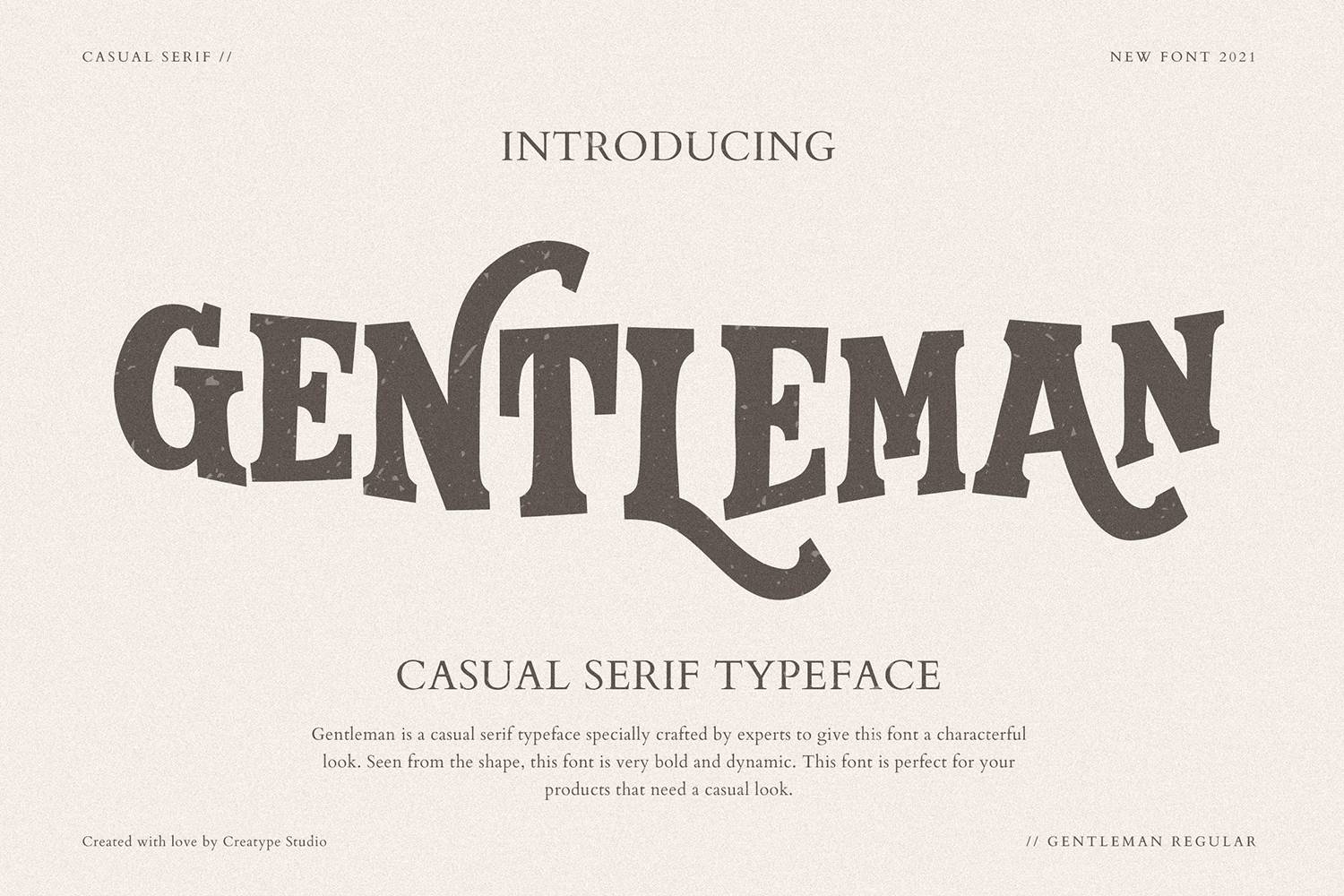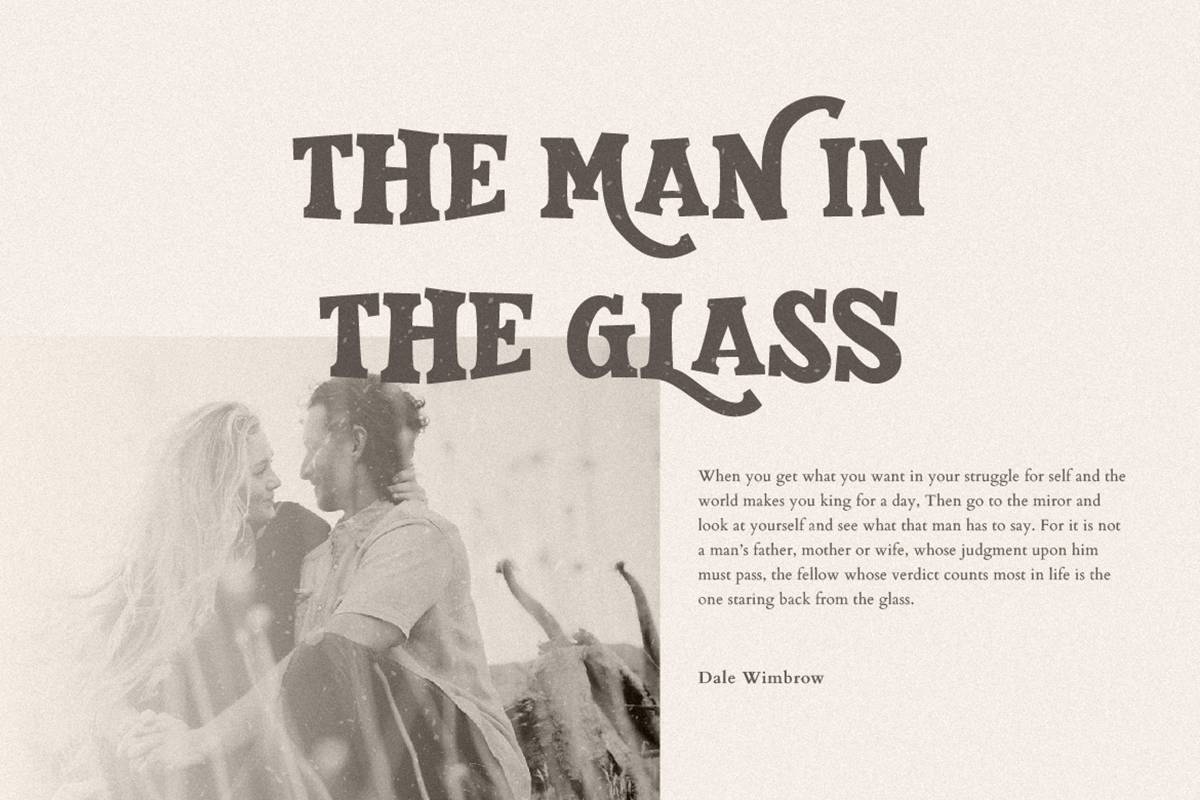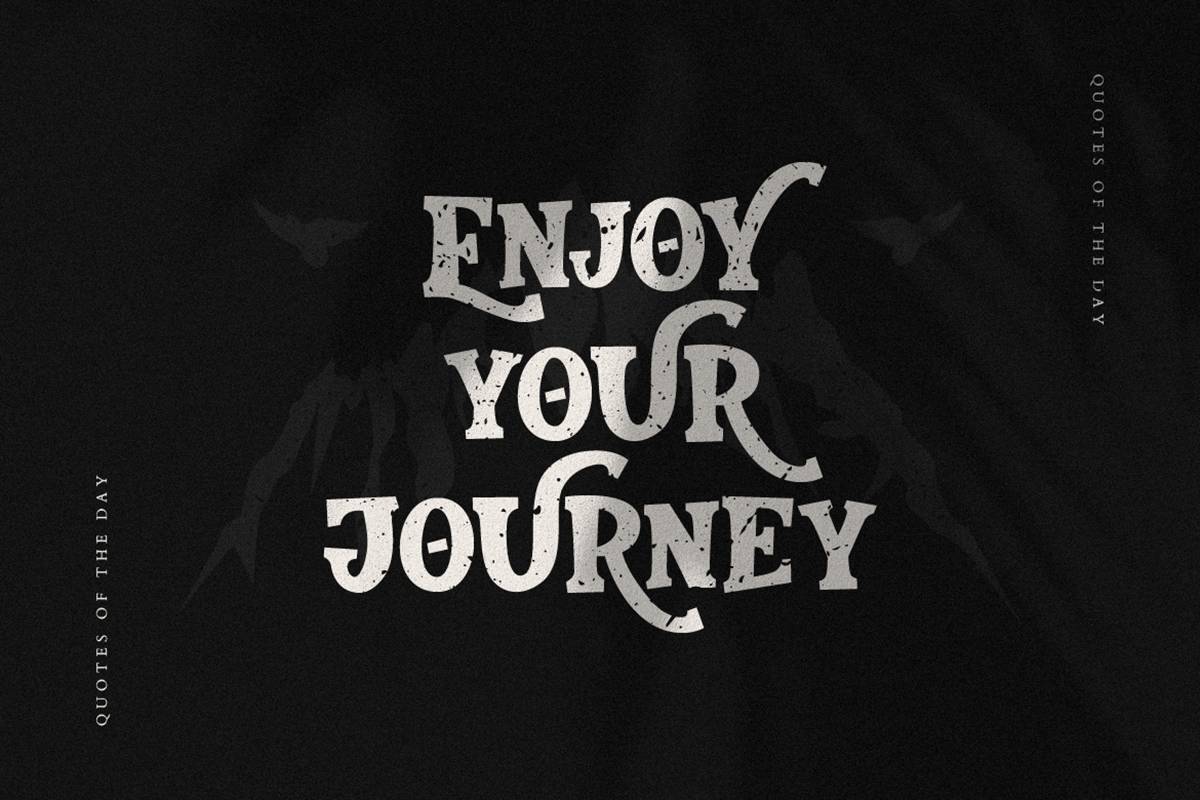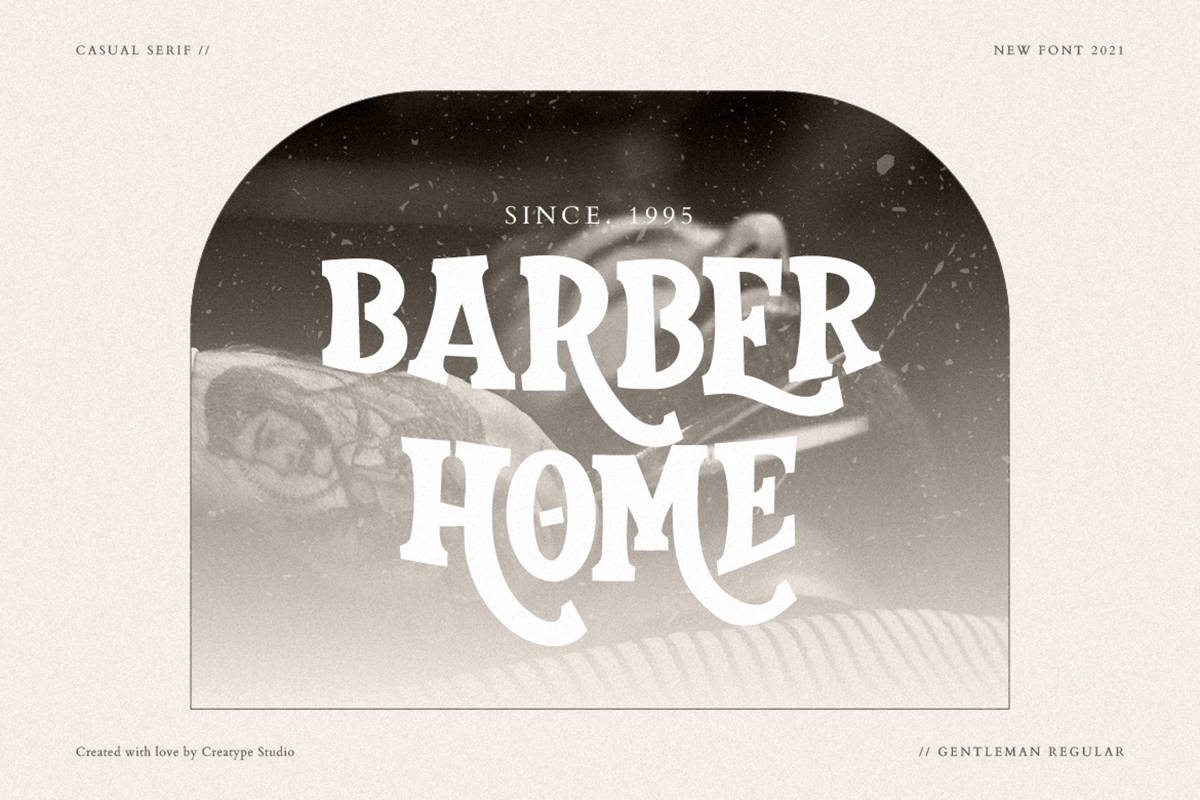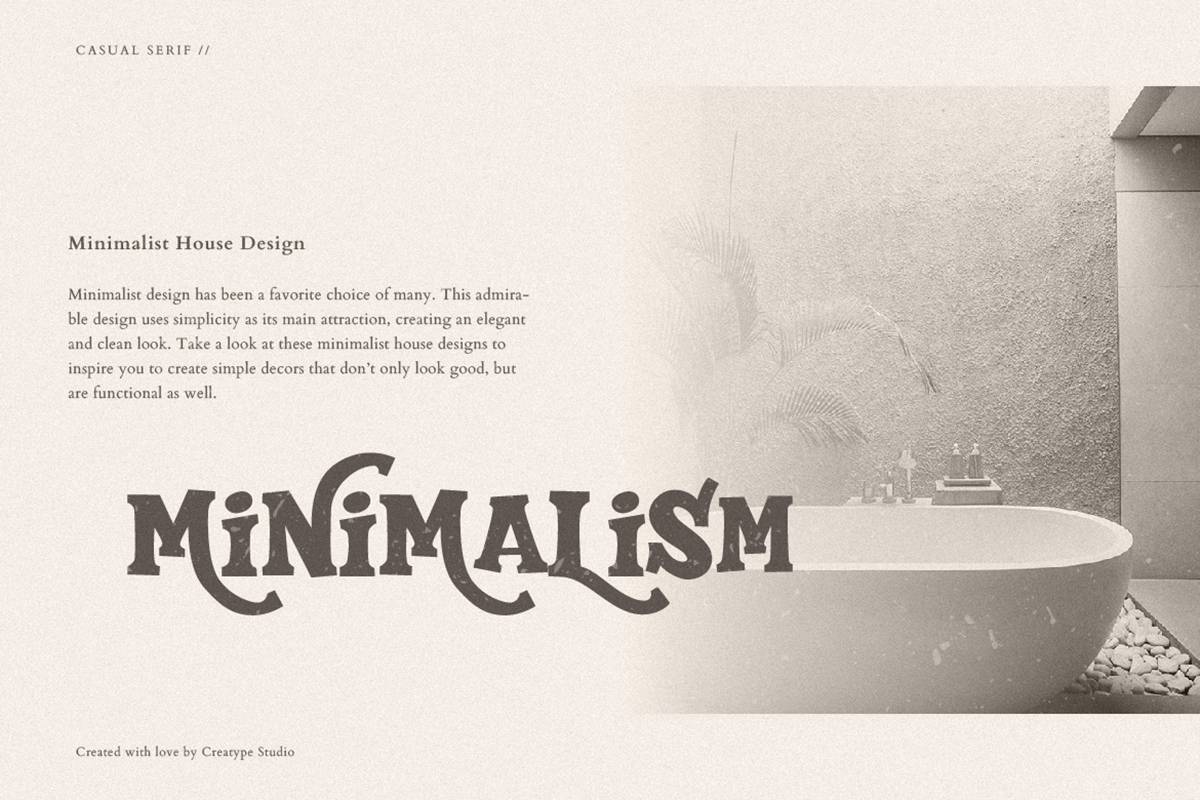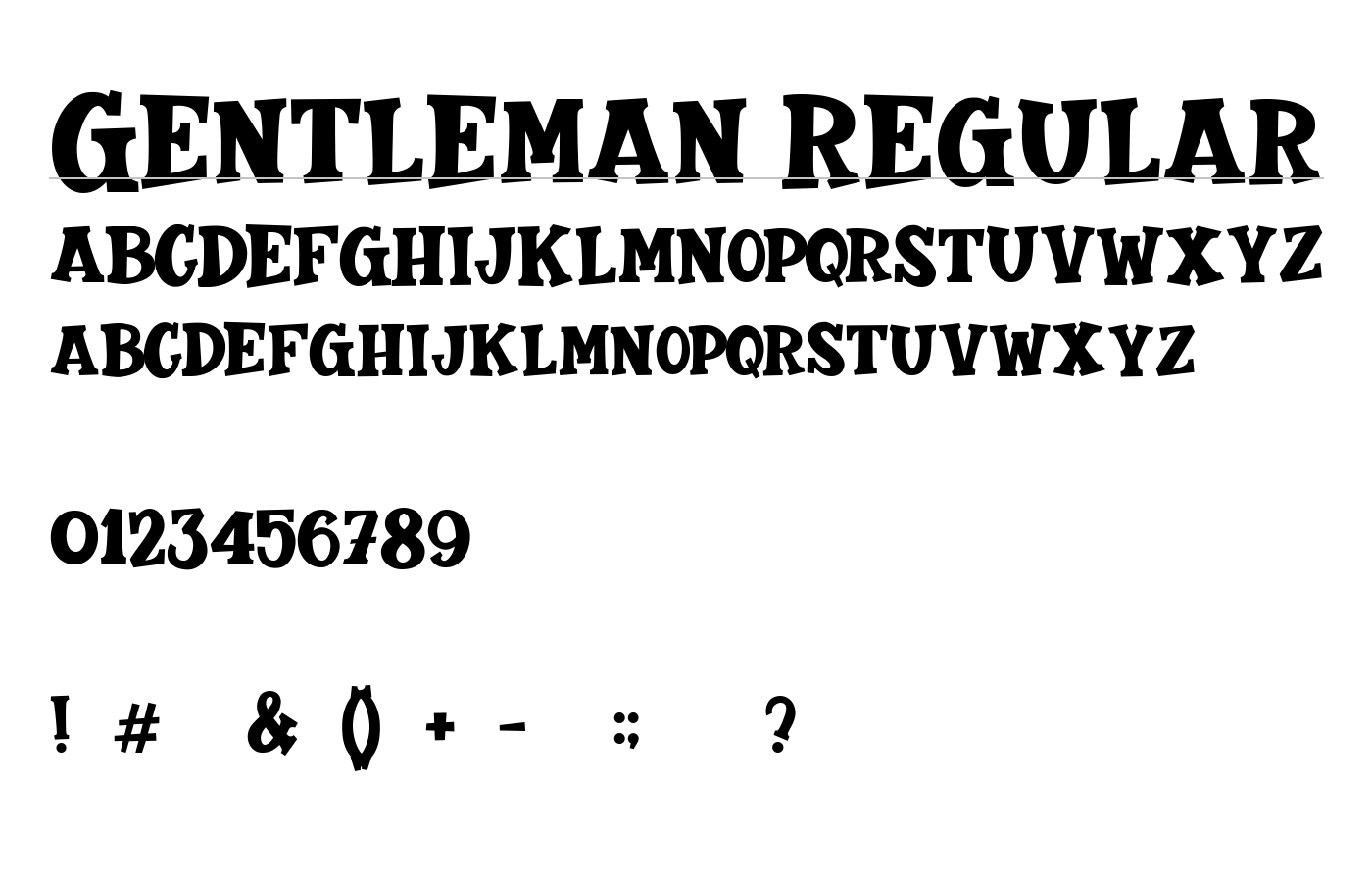
Gentleman Font is a bold, playful serif typeface with a slightly quirky personality, featuring thick, uneven strokes and exaggerated serifs that give it a handcrafted, vintage vibe. Its strong presence and casual charm make it ideal for eye-catching headlines, branding, and creative projects that want to convey friendliness with a touch of sophistication. This font works well for logos, posters, and packaging that seek a distinctive, approachable, yet stylish look.
Gentleman Font
About Gentleman Font